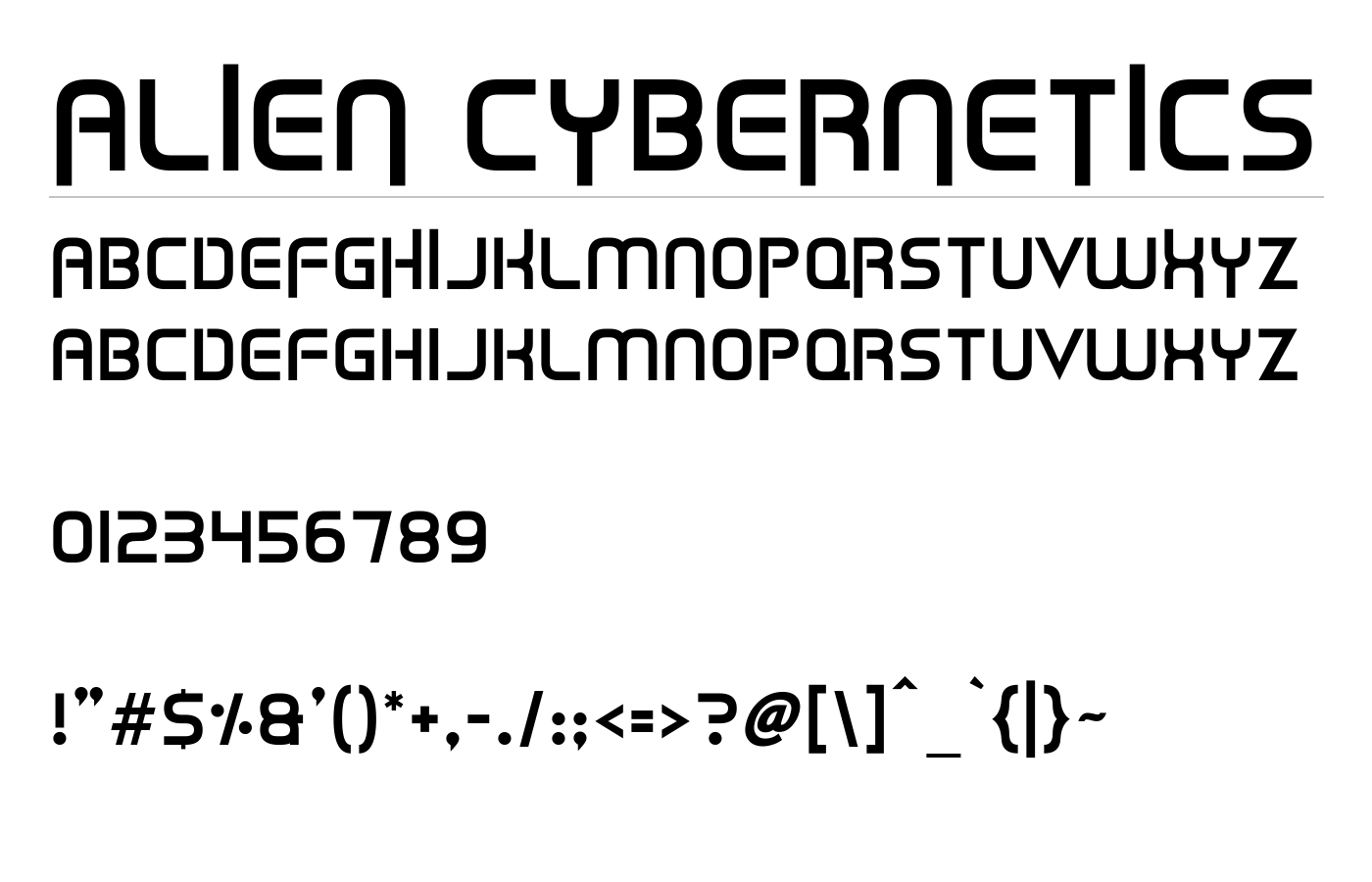
Alien Cybernetics is a sleek, modern sans serif font with a futuristic, tech-inspired design. Its clean, geometric letterforms and consistent medium weight make it ideal for digital and sci-fi themes, offering a sharp yet approachable feel perfect for headlines, logos, and branding in technology and gaming industries. This font’s distinctive shapes and high legibility lend a cutting-edge and innovative personality to any project.
ALIEN CYBERNETICS Font